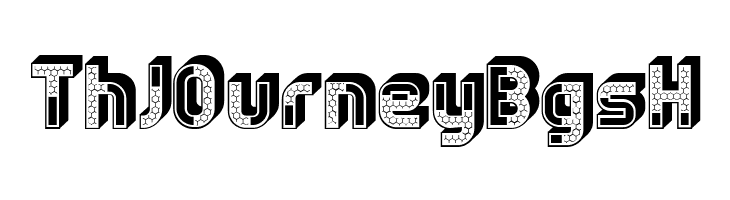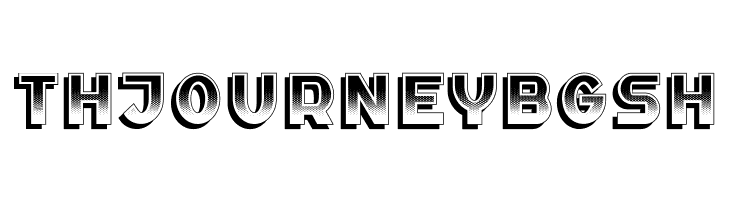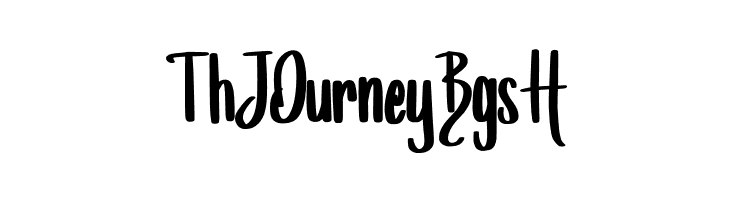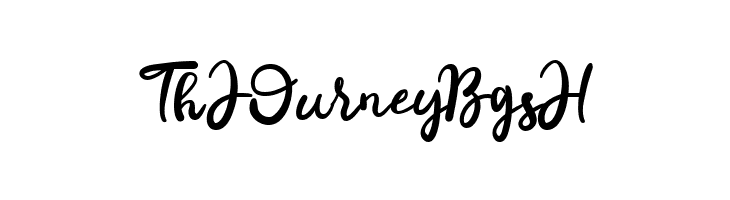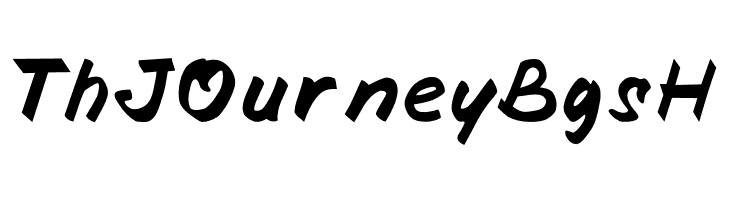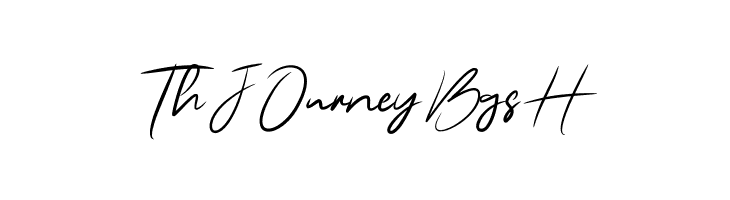
A tall, narrow, and modern font with high contrast and minimalistic style.
A graceful, cursive script font with elegant loops and fluid connections.
A modern, elegant script font with a flowing, handwritten style.
A bold, decorative font with a 3D effect and dotted texture.
A lively and elegant script font with flowing, cursive letterforms.
A lively and flowing script font with elegant cursive strokes.
A playful, handwritten font with exaggerated curves and a whimsical style.
A bold, decorative font with a geometric hexagonal pattern and strong outlines.
A bold, dynamic handwritten font with a playful yet assertive style.